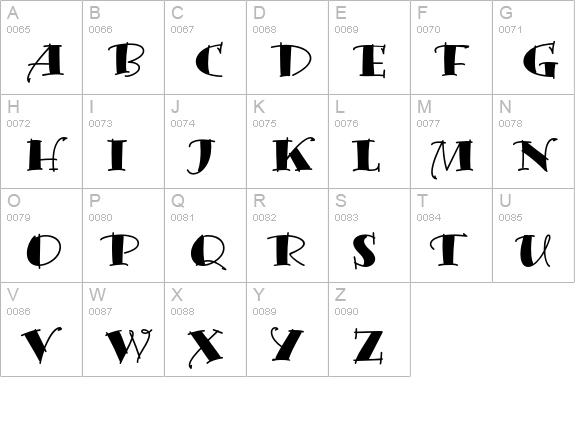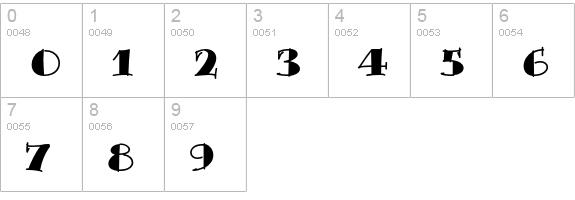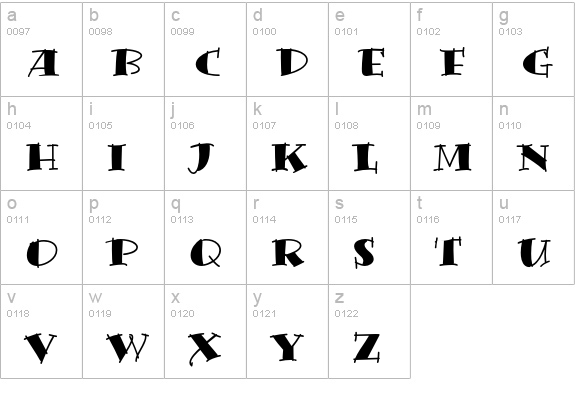
Bermuda LP Std Solid font is a versatile and modern typeface that exudes sophistication and elegance. With its clean lines and bold design, this font is perfect for conveying a sense of professionalism and style in any project. The Bermuda LP Std Solid font is a timeless choice that will make your text stand out and leave a lasting impression. Best of all, the Bermuda LP Std Solid font is available for free download at FontsMarket.com. Whether you're working on a website, logo, or print materials, this font is sure to elevate your design and make a statement. Don't miss out on the opportunity to enhance your projects with this beautiful and sleek font. Download Bermuda LP Std Solid today and bring your designs to the next level!